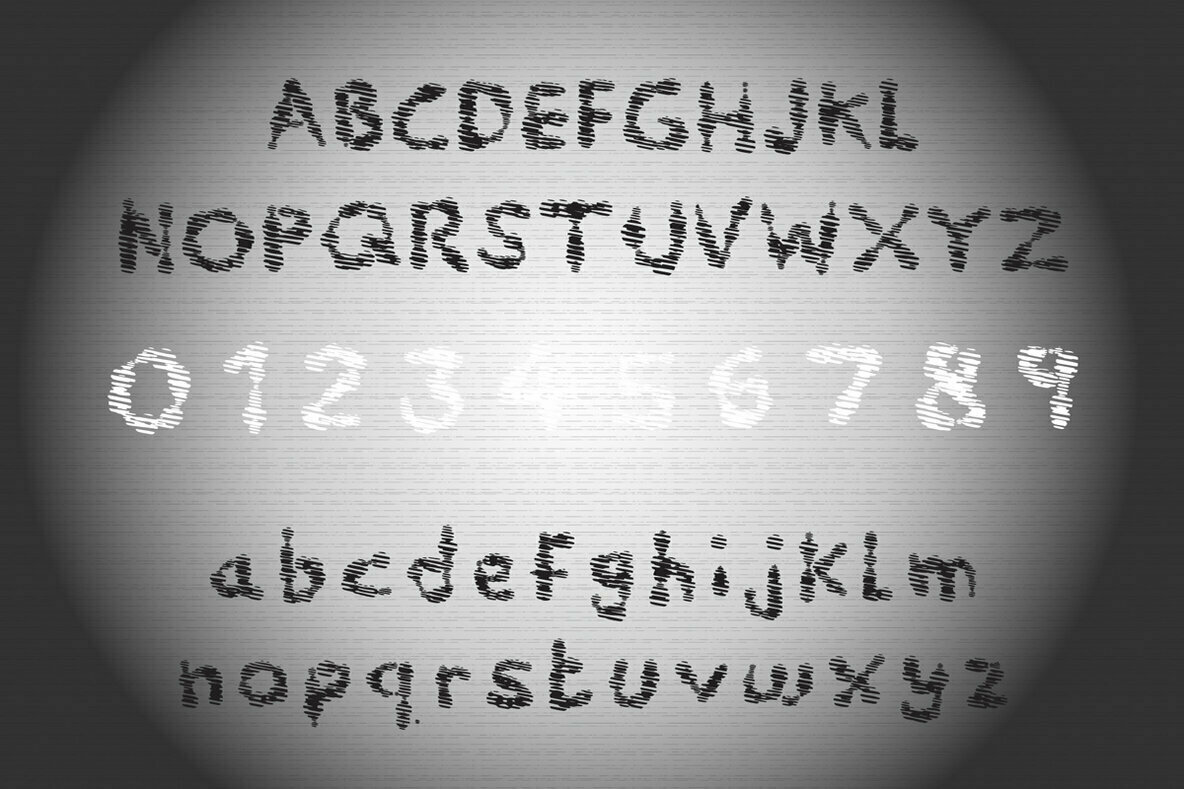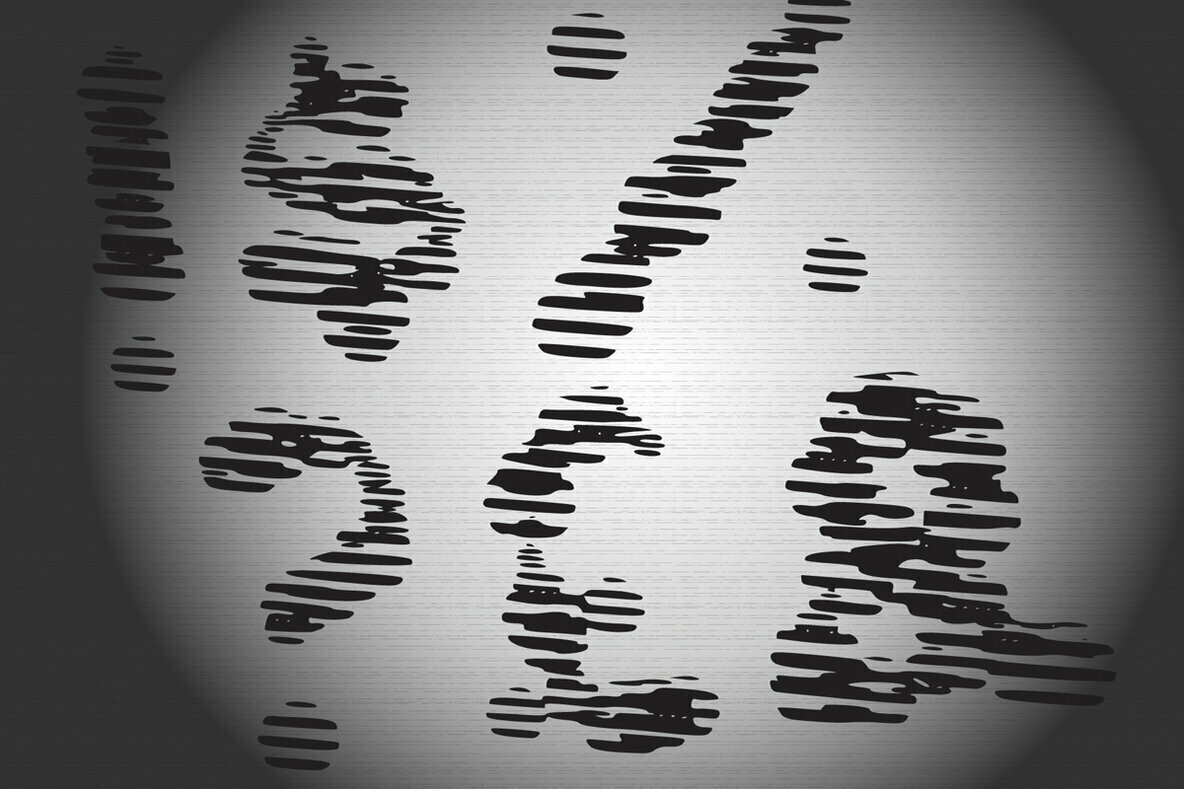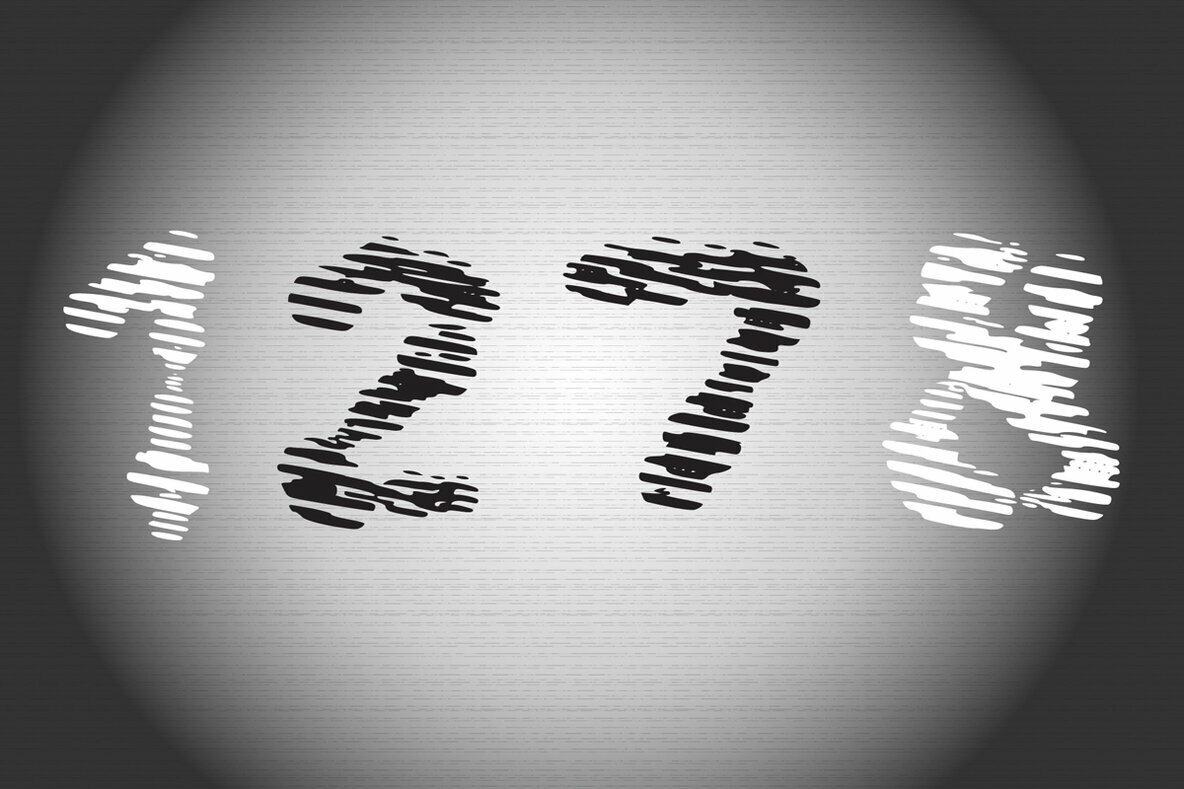
Inter Fear Font
Inter Fear
Inter Fear is an authentic display font. It features textured lines that makes it perfect for creating outstanding designs.